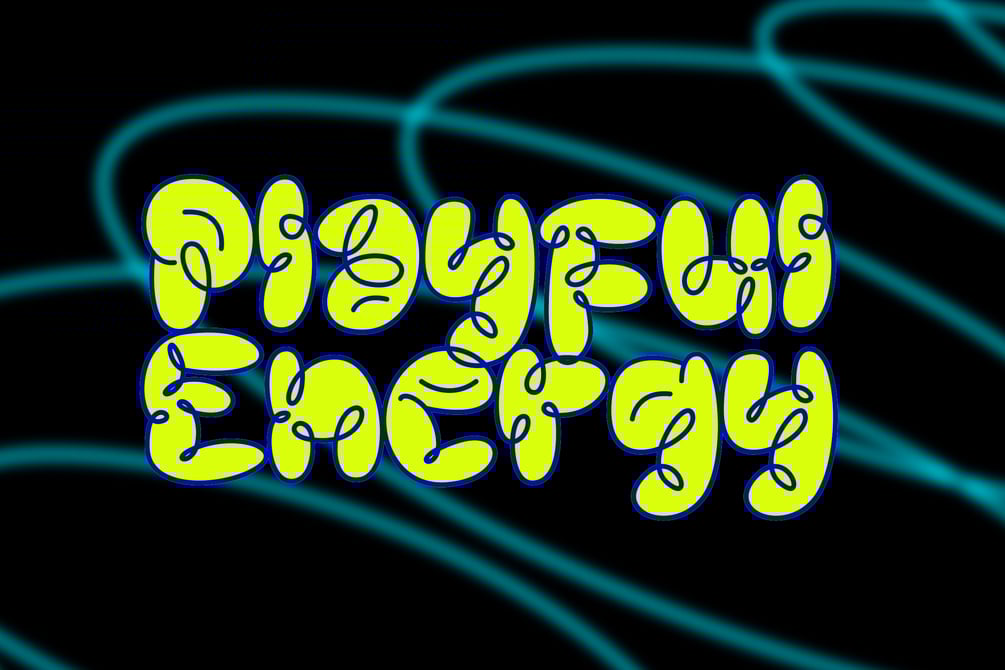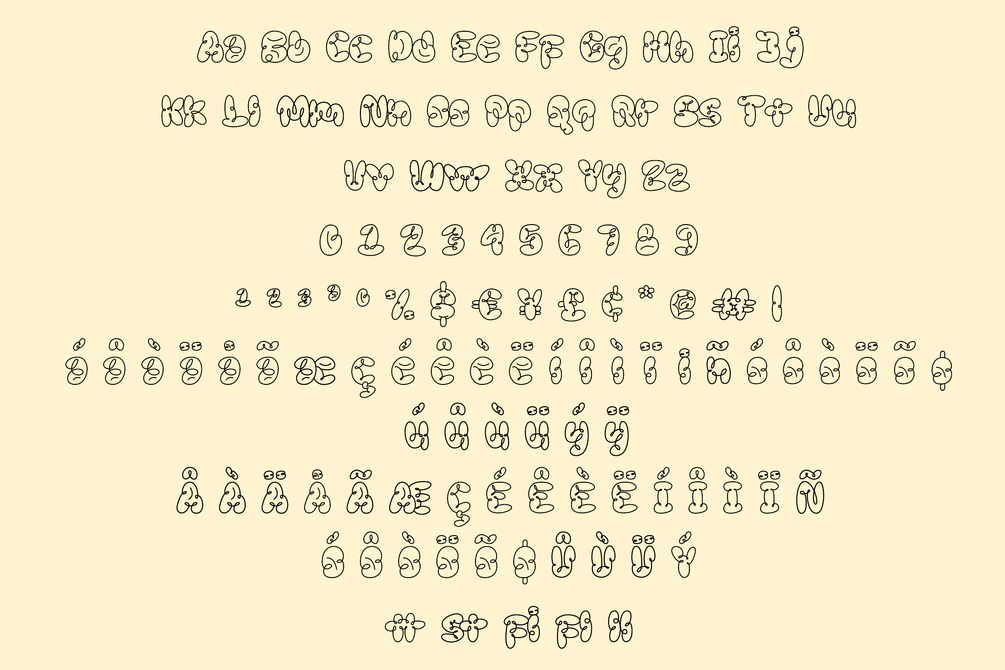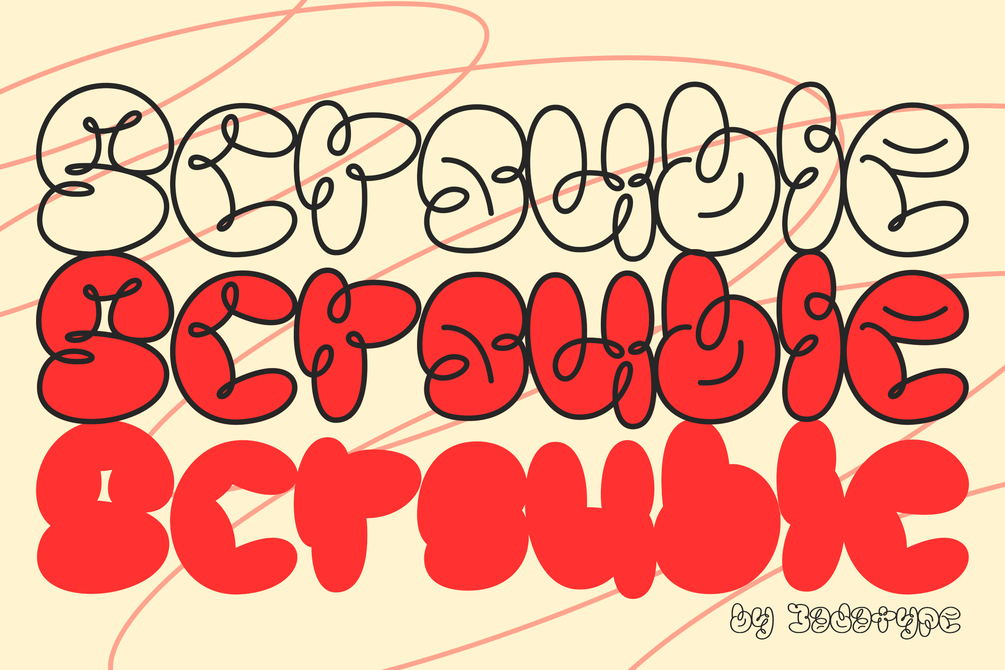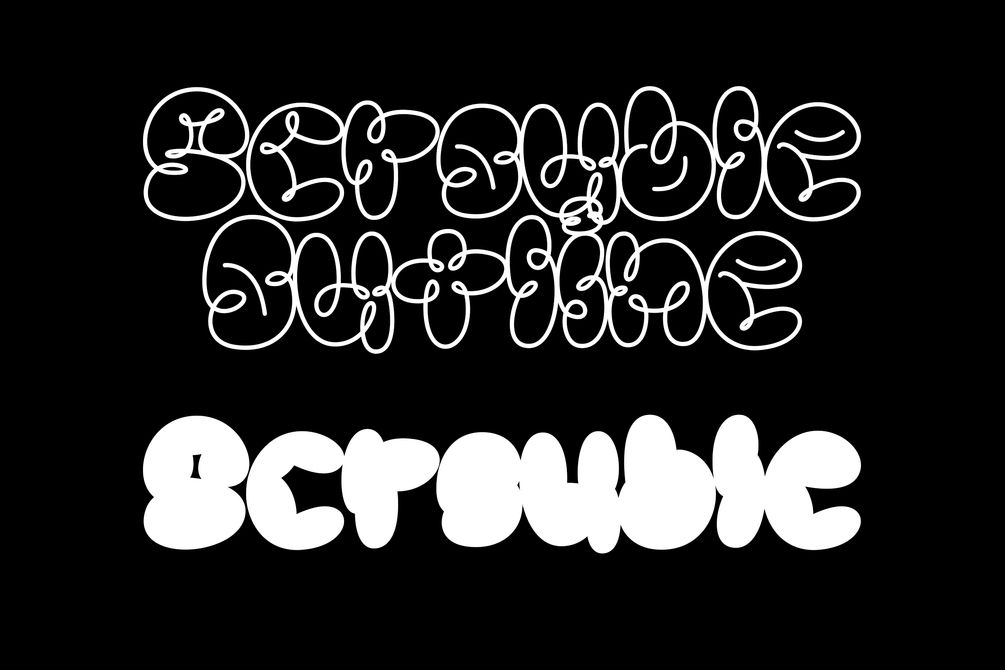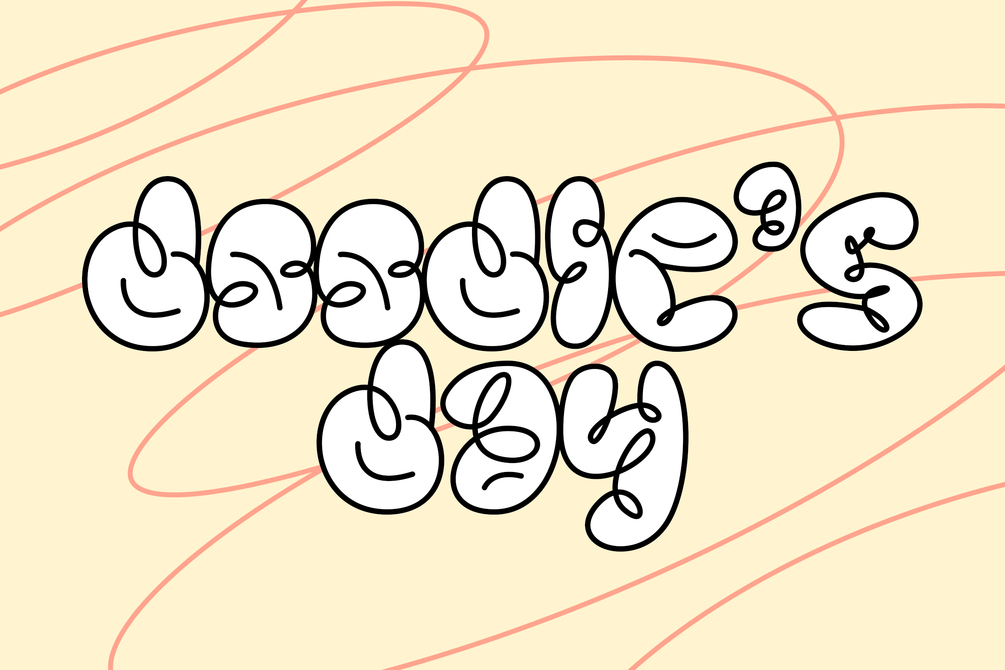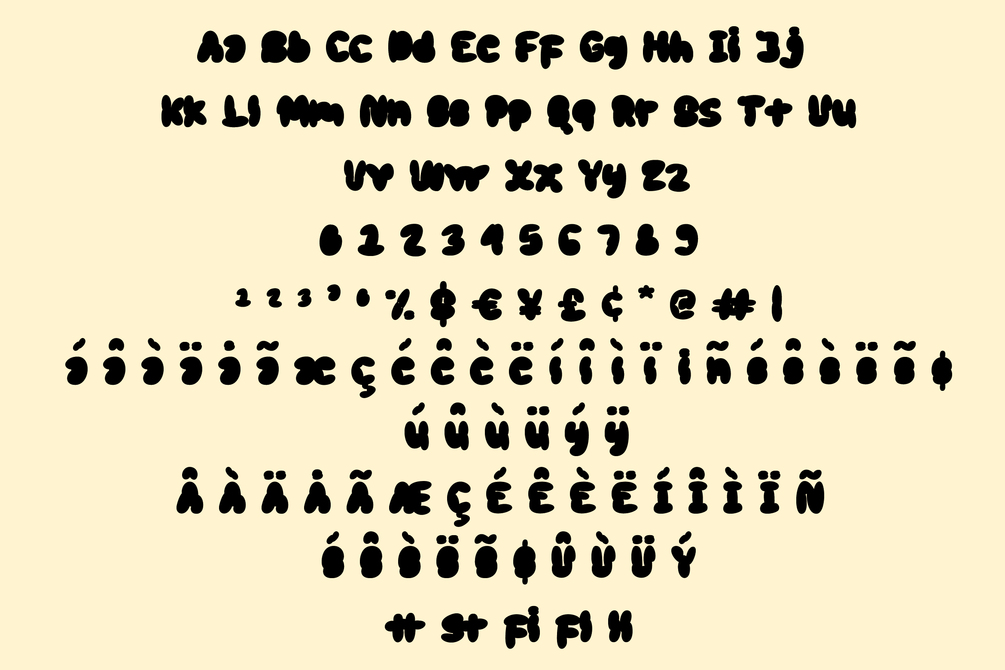
Scrouble Font
Scrouble is a display font that comes with a playful scribble style. suitable for tshirt, branding, social media, and so on. contains standard English letters, numbers, punctuation, and several accents that support multilingualism.